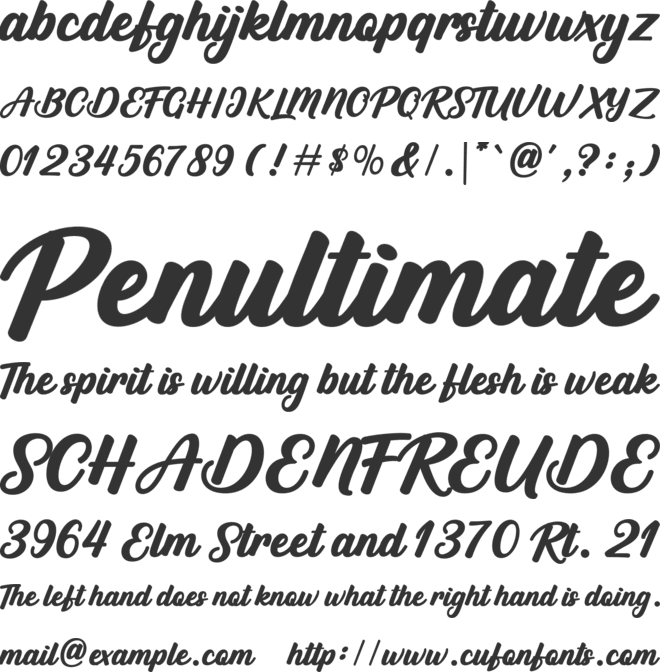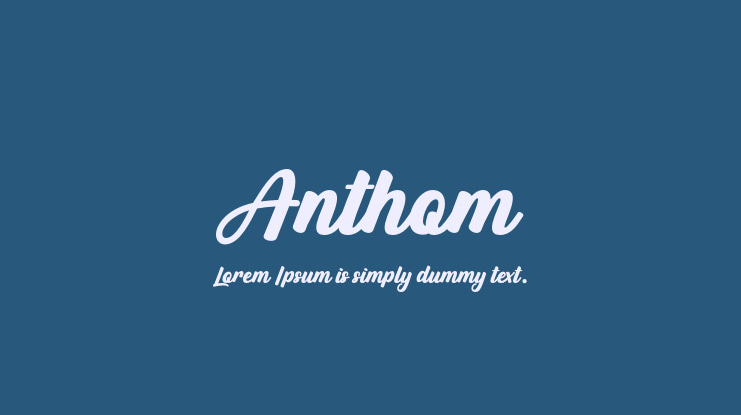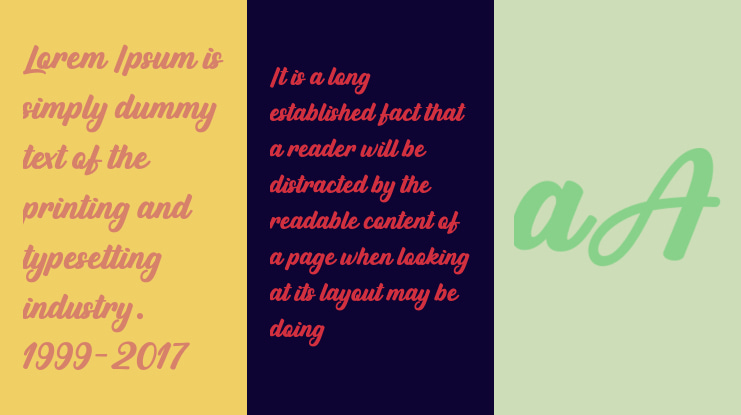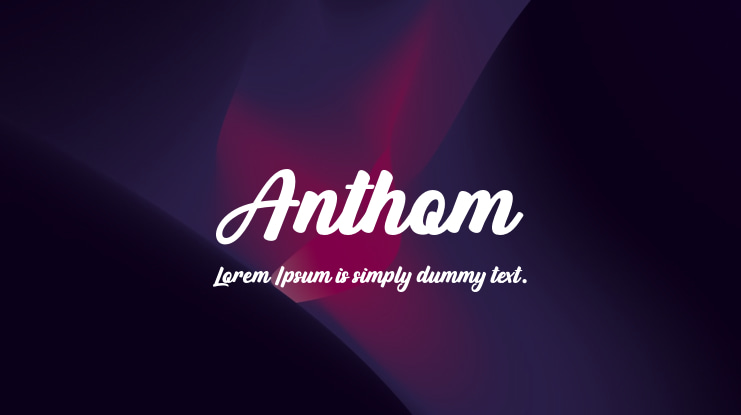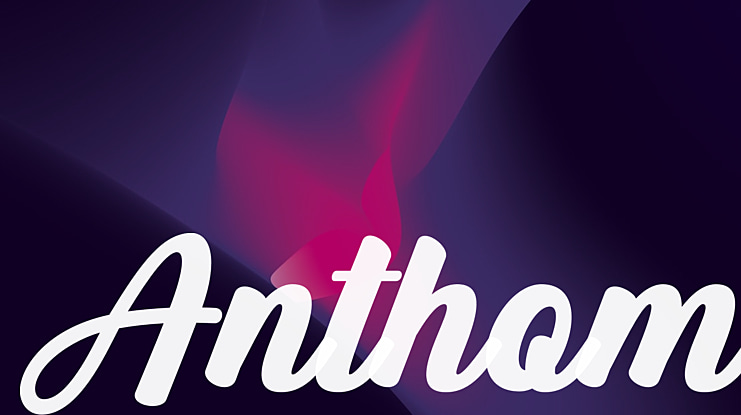
Anthom Font
Anthom is a modern handwritten script font.
This font is perfect for SVG designs, farmhouse signs, shirts, branding, ornaments, shirts, mugs, headings, blogs, logos, invitations, and more!